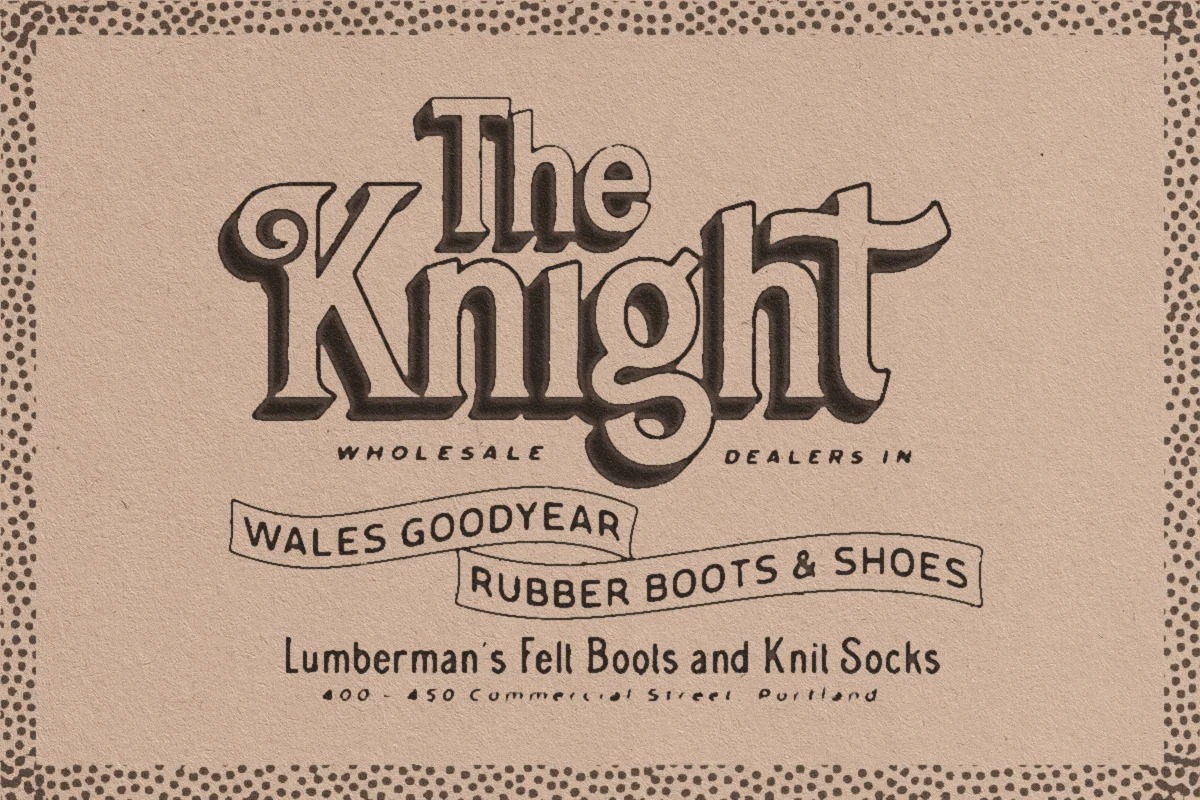
Rontage Font
Rontage Display Font
This font is inspired by a serif font that is retro style but still modern and unique. The stroke with swirls really make it looks nostalgic. This type of font perfectly made to be applied especially in logo, headline, signage and the other various formal forms such as invitations, labels, logos, magazines, books, greeting / wedding cards, packaging, fashion, make up, stationery, novels, labels or any type of advertising purpose.